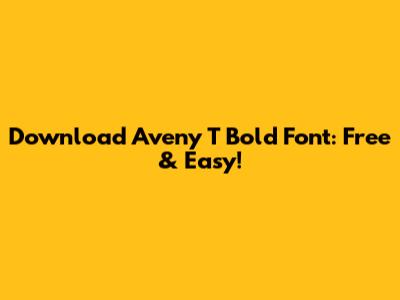
Hey guys! Ever stumbled upon a font that just screams modern sophistication and instantly elevates your design game? That's exactly what happens when you discover the Aveny T Bold font. This typeface is an absolute gem, known for its clean lines, geometric structure, and that undeniable boldness that makes text pop. If you're on the hunt for a free download to add this stunner to your collection, you've come to the right place. We're going to dive deep into how you can snag this awesome font and why it’s a must-have for designers, bloggers, and anyone who appreciates a killer typographic choice. Get ready to amp up your projects with Aveny T Bold!
Why Aveny T Bold is Your Next Favorite Font
So, what's the big deal about Aveny T Bold? Let me tell you, it's not just about being bold. This font is part of the Aveny family, which is inspired by geometric sans-serifs, but with a modern twist that feels super fresh. Think sharp, clean, and highly legible. The 'T' in Aveny T refers to its titling or display capabilities, meaning it's designed to make a statement. When you download Aveny T Bold for free, you're getting a versatile tool that works wonders for headlines, logos, posters, and even short bursts of body text where you want maximum impact. Its balanced proportions and open counters make it super readable, even at smaller sizes, which is a huge win. Plus, the bold weight specifically offers a strong presence without feeling heavy or clunky. It’s that perfect sweet spot between impactful and elegant. Imagine using it for a cool event poster or a sleek website banner – it just works. The geometric underpinnings give it a contemporary feel that aligns perfectly with current design trends, making your work look on-point and professional. Many designers rave about its versatility, noting how it can adapt to various styles, from minimalist chic to more vibrant, energetic branding. It's the kind of font that doesn't just fill space; it commands attention and adds a layer of sophistication to whatever it graces. So, if you're looking to make a statement with your typography, Aveny T Bold is definitely worth exploring.
Tips for Maximizing the Impact of Aveny T Bold
Guys, having the Aveny T Bold font free download is awesome, but making it really shine in your designs takes a little know-how. First off, less is often more. Because Aveny T Bold is so impactful, you don't need to overuse it. Let it be the star of the show in your headlines or key textual elements. Think about where you want the viewer's eye to go first – that's prime real estate for this bold beauty. Another tip is pairing it strategically. While Aveny T Bold is great for headlines, it might be a bit too much for long paragraphs. Find a complementary font that's lighter and more neutral for your body text. This contrast will make both fonts look better and improve readability. Consider a clean sans-serif like Open Sans or Lato for the supporting text. Hierarchy is your friend. Use Aveny T Bold for your main titles and subheadings, and then use different sizes and weights of your body font for other information. This creates a clear visual path for your reader. Don't forget about color. A bold font like Aveny T Bold can handle strong colors, but also looks incredibly sophisticated in classic black, white, or even metallic tones. Test out different color combinations to see what best fits the mood and message of your project. Lastly, consider the context. Where will this design be seen? On a screen? Printed? A billboard? Aveny T Bold's legibility is a huge plus, but ensuring sufficient contrast and appropriate sizing for the viewing distance is always crucial for maximum impact. By following these simple yet effective tips, you'll ensure that your use of the Aveny T Bold font isn't just bold, but also brilliant!